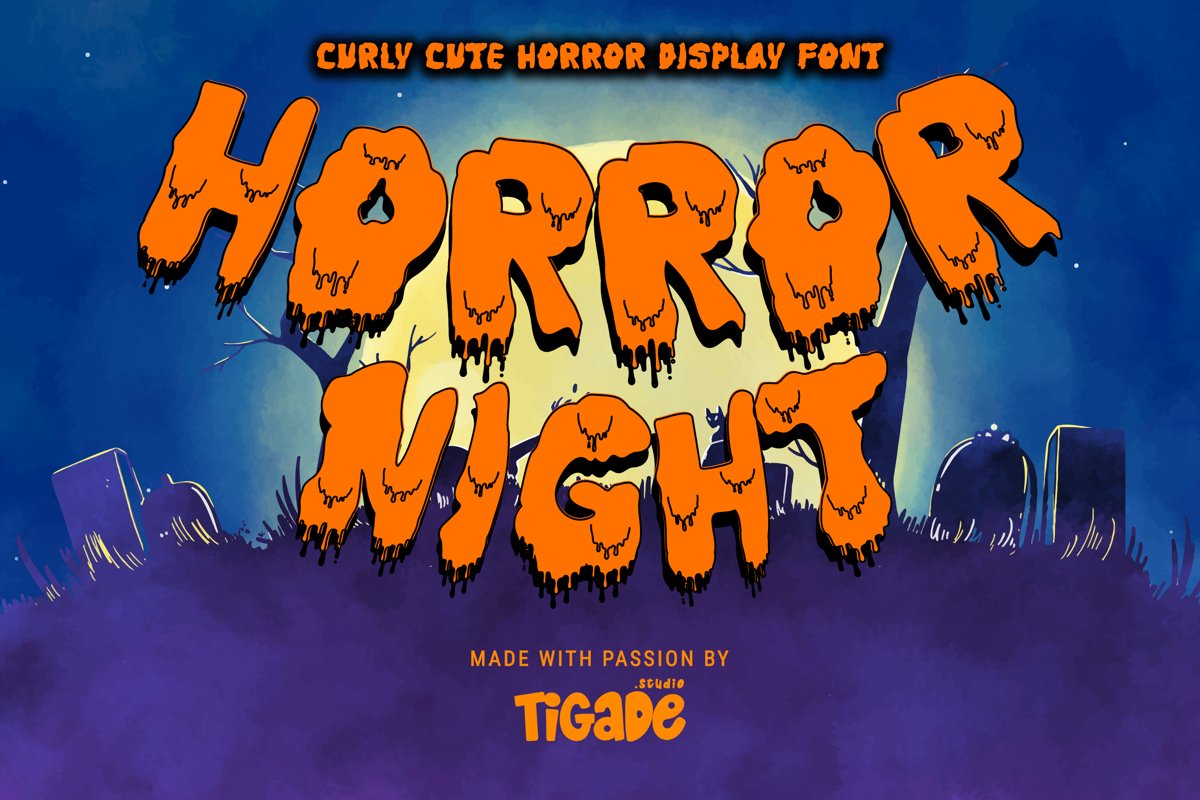
Night Horror is a cool Halloween display font. It embodies playfulness and authenticity and is the perfect choice for all your favorite projects such as blog posts, logos, branding, ads, invitations, greeting cards, planners, photo albums, decorations, and more. Add it to any of your designs, and enjoy the results!